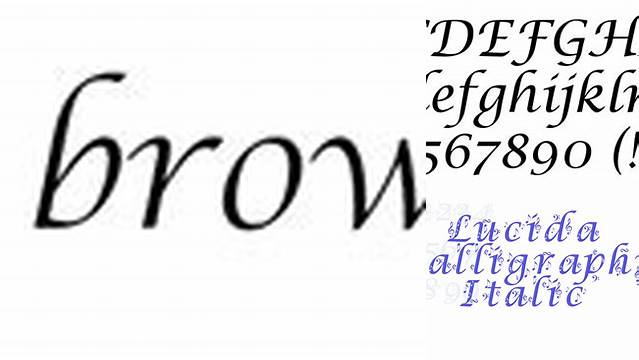
Hey guys! Are you on the hunt for a font that oozes elegance and adds a touch of sophistication to your projects? Look no further than Lucida Calligraphy Italic! This font is a true gem, known for its graceful strokes and timeless appeal. In this comprehensive guide, we'll dive deep into everything you need to know about Lucida Calligraphy Italic, including where to find free downloads, its best uses, and even some tips for pairing it with other fonts. So, let's get started and unlock the beauty of this classic typeface!
What Makes Lucida Calligraphy Italic So Special?
Lucida Calligraphy Italic isn't just another font; it's a work of art. Its delicate curves and flowing lines evoke a sense of traditional calligraphy, making it perfect for projects that demand a touch of class and refinement. Think wedding invitations, elegant logos, and sophisticated branding materials – this font can handle it all! But what exactly makes Lucida Calligraphy Italic so special? Let's break it down:
- Elegance and Sophistication: The font's flowing script and delicate letterforms exude elegance. It's like the font equivalent of a perfectly tailored suit or a stunning piece of jewelry. This makes it ideal for projects where you want to make a statement of quality and style.
- Timeless Appeal: Unlike trendy fonts that come and go, Lucida Calligraphy Italic has a timeless quality. It's been around for years and continues to be a popular choice for designers and creatives who appreciate its classic beauty. This means your designs won't look dated anytime soon!
- Versatility: While it's often associated with formal occasions, Lucida Calligraphy Italic is surprisingly versatile. It can be used in a wide range of projects, from invitations and logos to book covers and website headers. Its adaptability is one of its greatest strengths.
- Readability: Despite its elaborate style, Lucida Calligraphy Italic maintains a good level of readability, especially when used in larger sizes. This is crucial for ensuring your message is clear and easily understood, even with such a decorative font.
- Emotional Connection: Fonts have the power to evoke emotions, and Lucida Calligraphy Italic is no exception. Its graceful curves and elegant lines can create a sense of romance, nostalgia, or sophistication, depending on the context. This makes it a powerful tool for communicating your brand's personality or the overall mood of your project.
To fully appreciate Lucida Calligraphy Italic, it helps to understand its history and the design principles behind it. The Lucida family of fonts was designed by Charles Bigelow and Kris Holmes in the 1980s, with the goal of creating typefaces that were highly legible on computer screens. Lucida Calligraphy Italic was a natural extension of this vision, bringing the beauty of handwriting to the digital world. The designers carefully crafted each letterform to ensure a harmonious and balanced appearance, resulting in a font that is both beautiful and functional.
When you use Lucida Calligraphy Italic, you're not just choosing a font; you're choosing a piece of design history. You're tapping into a legacy of craftsmanship and attention to detail that will elevate your projects and leave a lasting impression.